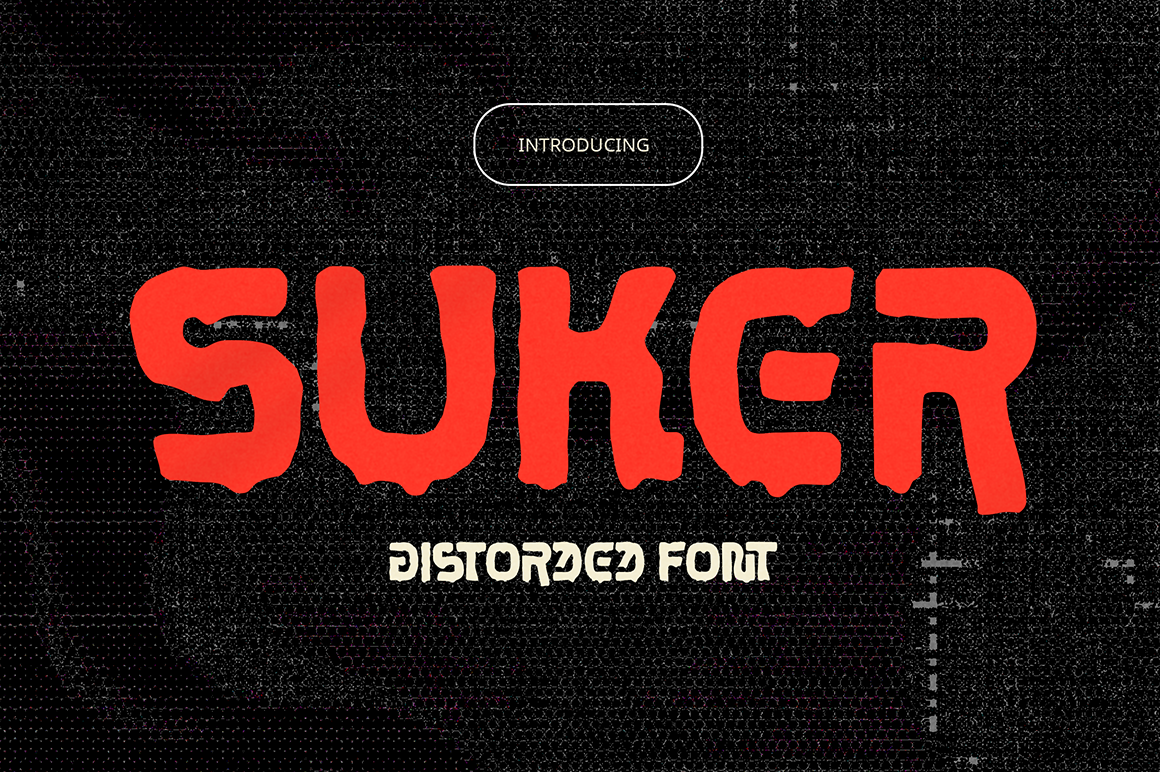
Suker - Distorted Font
Suker is a fearless decorative display font that transforms bold typography into a statement. Featuring heavily distorted all-caps letterforms, it combines a raw handcrafted aesthetic with a modern edge, creating a look that's impossible to ignore. Every character is designed to radiate personality, while its carefully crafted ligatures add natural rhythm and originality to your text. From striking logos and bold packaging to posters, branding and attention-grabbing headlines, Suker delivers a powerful visual identity that makes every design louder, bolder, and more unforgettable.
Distorded Decorative Font
All Caps Font
Basic Latin Glyphs
Modern and Funky
Unique Ligatures
Numeral and Punctuation
Currencies